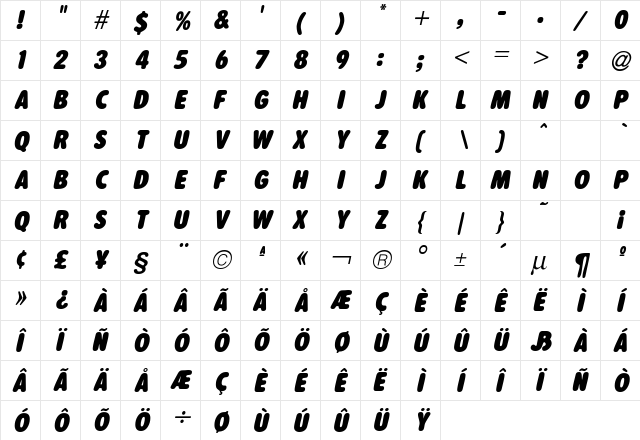
KutakSSK BoldItalic Font Preview
Design Context for KutakSSK Typeface
KutakSSK takes a measured approach to typography — its balanced proportions and neutral character make it a reliable workhorse for both digital and print work. Its italic angle brings a sense of urgency and motion to the letterforms. The heavy weight commands attention and anchors typographic hierarchies.